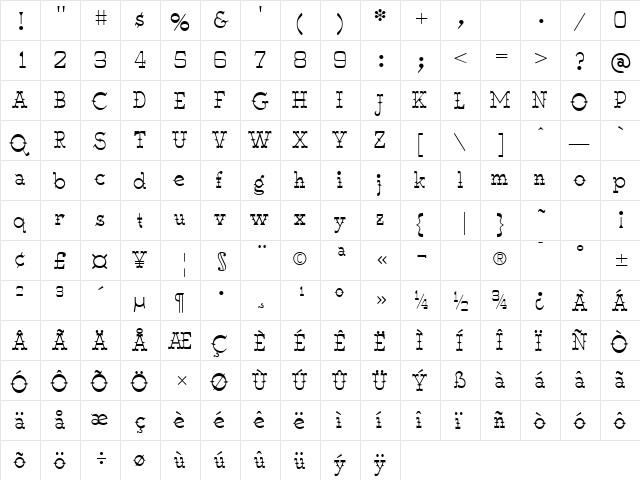
WyomingMacroniPegged Regular
Design Context for WyomingMacroniPegged Typeface
WyomingMacroniPegged takes a measured approach to typography — its balanced proportions and neutral character make it a reliable workhorse for both digital and print work.